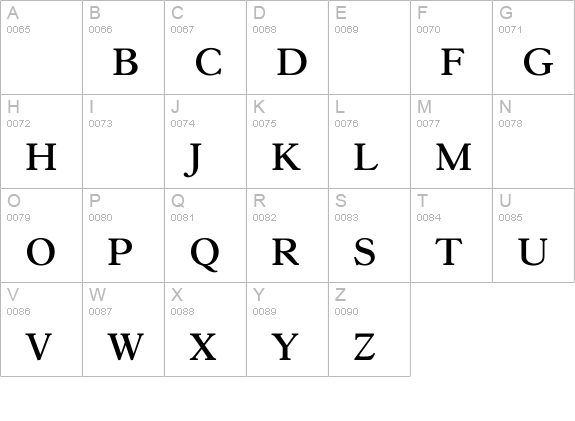
GoudY38Bold font is a striking and versatile typeface that exudes elegance and sophistication. With its bold and commanding presence, this font is perfect for making a statement in headlines, titles, and branding materials. The strong, distinct lines of GoudY38Bold make it a standout choice for projects that demand attention and authority. What makes GoudY38Bold even more appealing is that it is available for free download at FontsMarket.com. This means you can easily access this high-quality font without any cost, making it a fantastic option for designers, creatives, and anyone looking to elevate their projects with a touch of sophistication. Don't miss out on the opportunity to enhance your designs with the timeless allure of GoudY38Bold font, now conveniently available for free at FontsMarket.com.